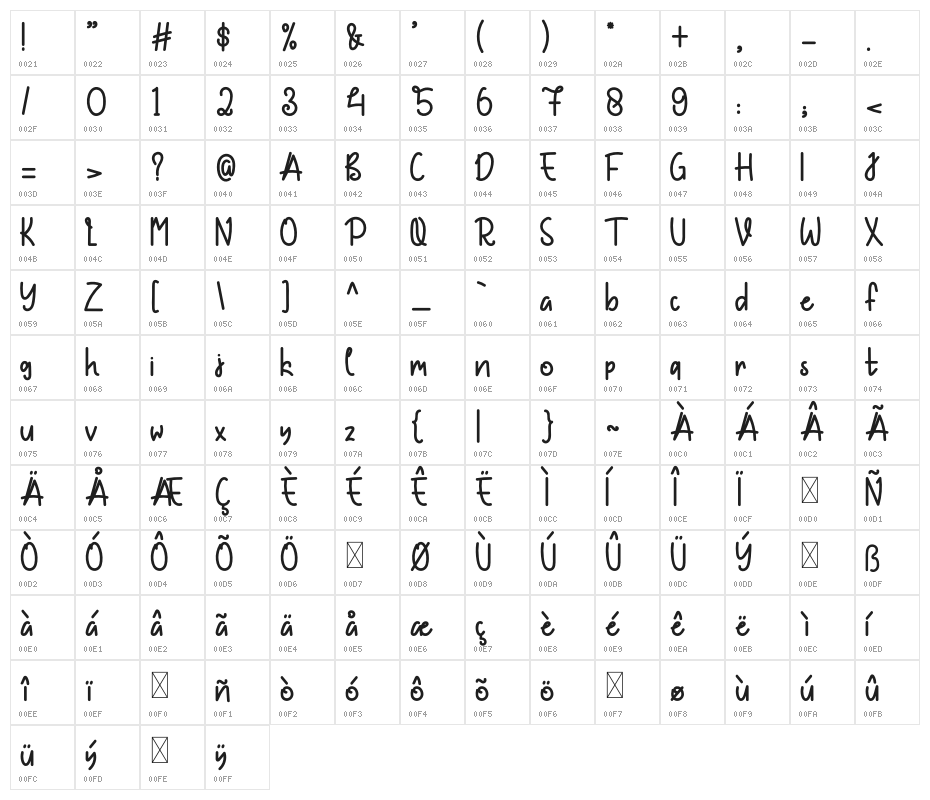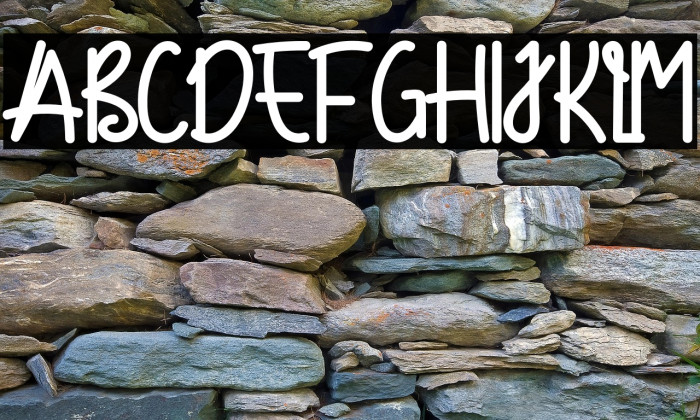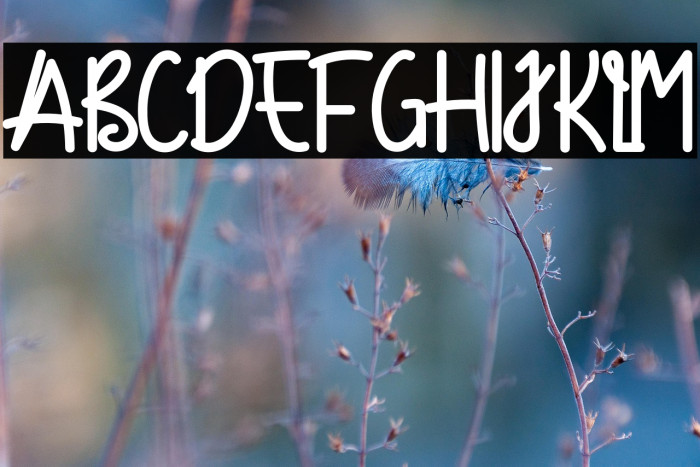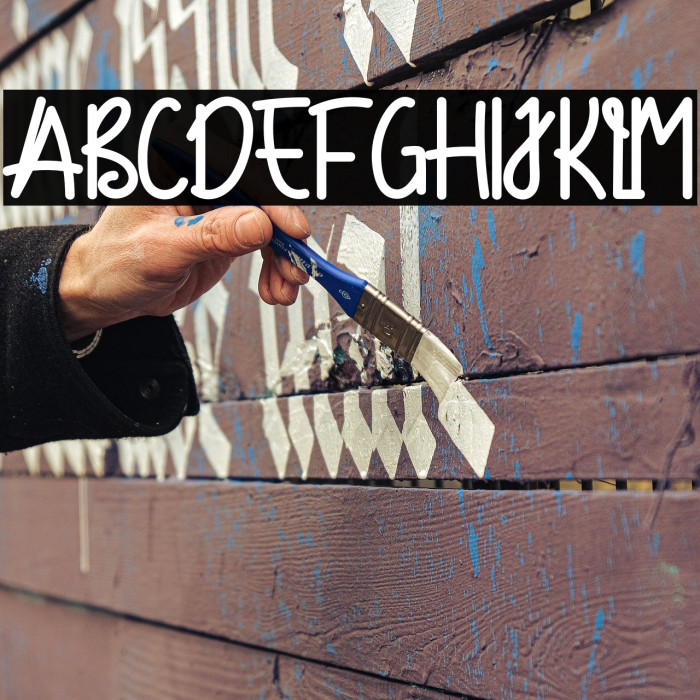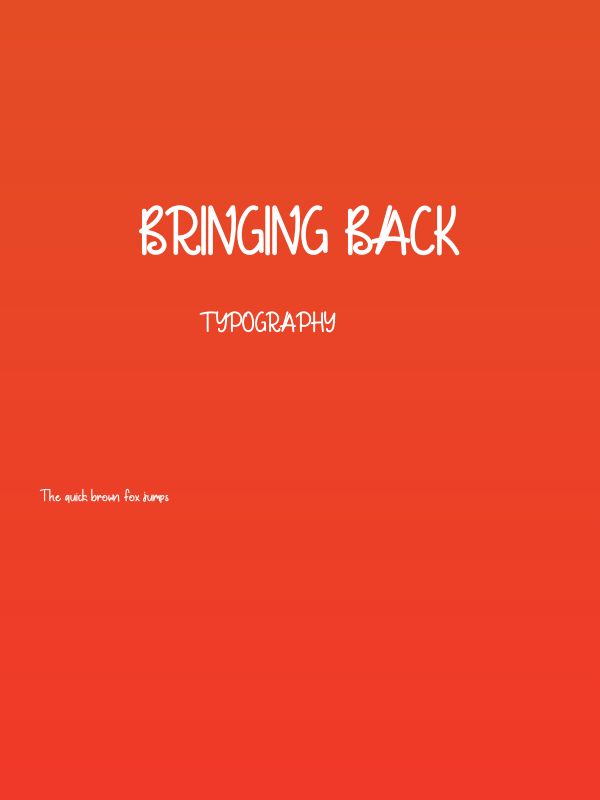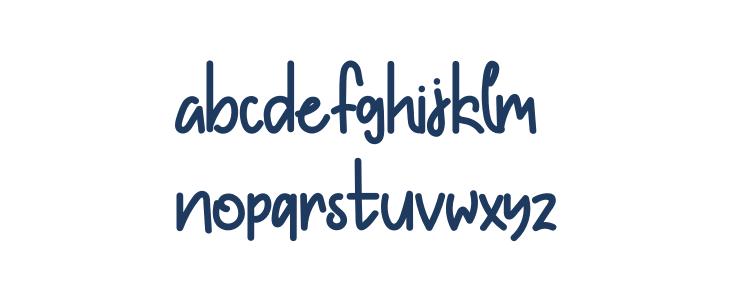
Bringing Back Font
Bringing Back Description
This playful and energetic font features a handwritten style with a casual, friendly appearance. The characters are slightly irregular, adding a personal touch that mimics natural handwriting. The uppercase letters are bold and rounded, while the lowercase letters maintain a consistent flow with a slightly narrower form. Numbers and special characters follow the same lively style, making them easily readable and visually appealing. The overall design is approachable and informal, perfect for projects that require a touch of personality and warmth.
Overall StyleCasual
Use CaseHeadlines, Informal text, Branding
Proposed ProjectsIdeal for greeting cards, children's books, casual branding, and social media graphics.